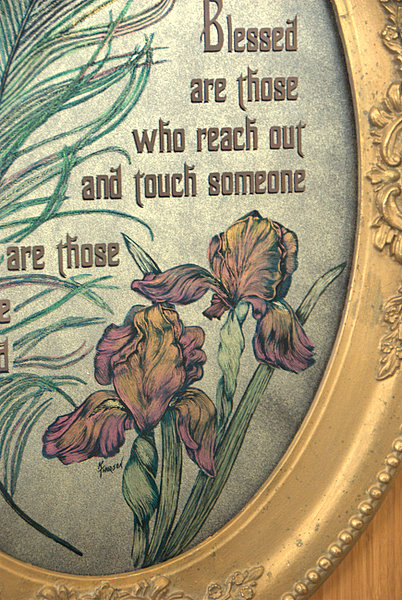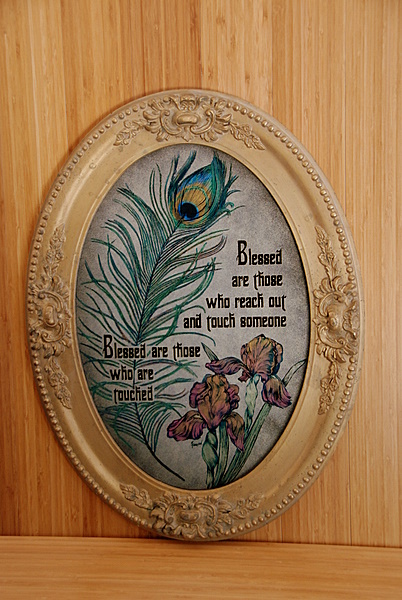
Finished Glass Picture
A gift for a friend....
that is a very nice glass, it is....uh,huh
Dave, The lettering is copper mirroring with a drop shadow. Thanks for the kind words and encouragement. Really.
Larry, that means lots coming from you. Tony and Ron too.
I painted the images using japan colours (mixes of ultramarine and burnt umber) and allowing the brush strokes to play a heavy role. I then used an exacto, a stylus and needles to remove paint where I wanted colour. The colour is mica and bronze powders (fast size).
Doug, that frame is older than both of us. I thought about gilding it but in real life it has a wonderful patina and I decided it deserved to maintain it's dignity as it was. I do have an identical one that requires repairs that I believe I will gild.
I just returned from a glass workshop in NM. It was an incredible experience and has really got my creative juices flowing. I'm working on a couple of pieces and I think I have managed to figure out how to meld my passion for art and my passion for glass in a way that will be uniquely me.
I have quite a few beautiful old frames......my goal is to fill them up with beautiful old looking glass art.
Nice work kelly!
Really marketable in my opinion.
Keep going with this!